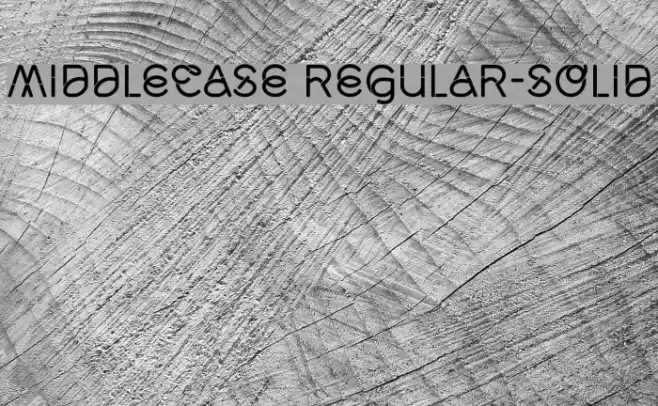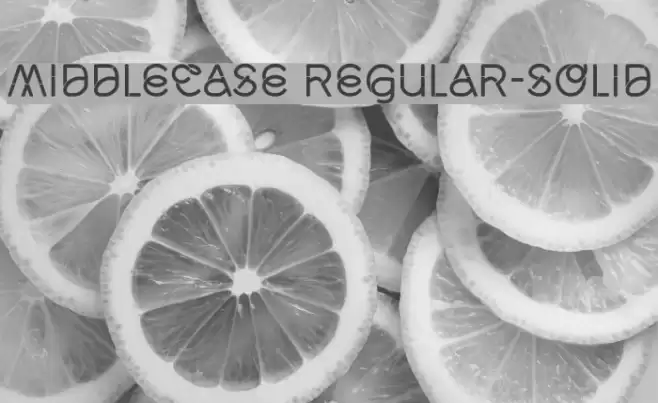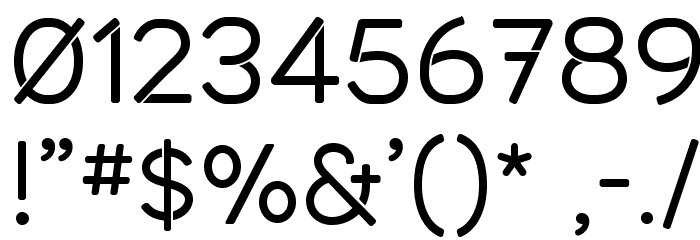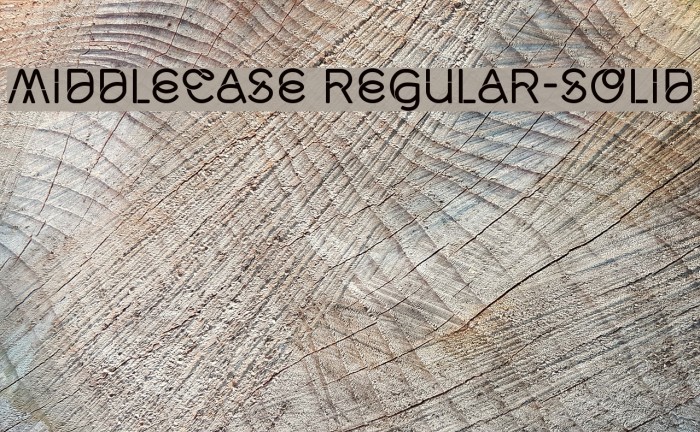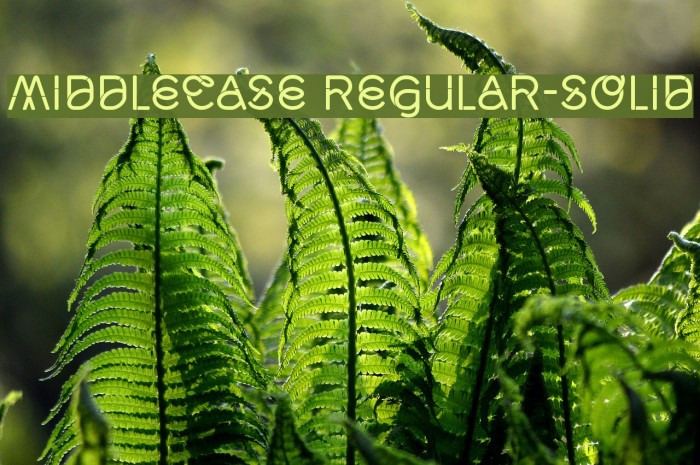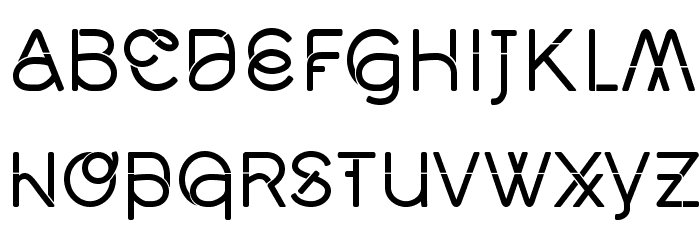
Middlecase Regular-Solid Font
Middlecase Regular-Solid Description
This font features a modern and geometric design with a unique blend of curves and straight lines. The uppercase letters exhibit a distinct style with rounded edges and consistent stroke width, creating a harmonious and balanced appearance. The lowercase letters maintain this geometric aesthetic, offering a clean and contemporary look. Numbers and special characters follow the same design principles, ensuring uniformity across all glyphs. The font's overall style is sleek and minimalistic, making it suitable for various design applications.
A modern, geometric font with rounded edges and consistent stroke width from Decorative fonts.
- Proposed Projects: Ideal for branding, headlines, posters, and digital interfaces where a modern and clean aesthetic is desired.
- Use Case: Headlines, Logos, Digital Interfaces